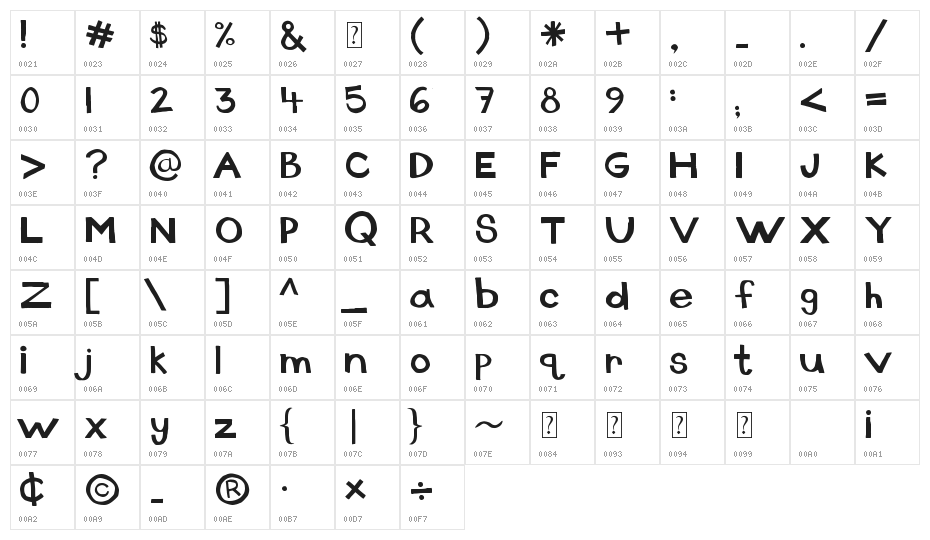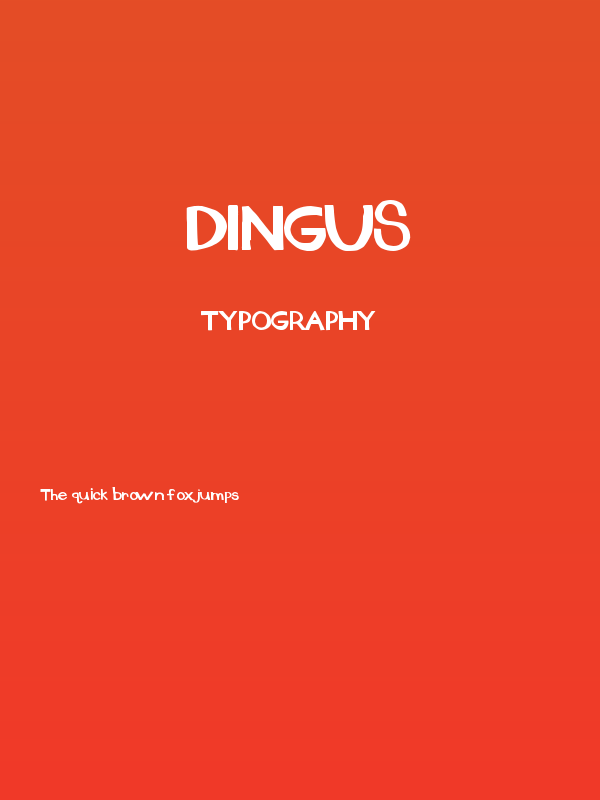
dingus Font
dingus Description
This playful and quirky font features bold, uneven strokes that give it a hand-drawn appearance. The characters have a whimsical, cartoon-like quality, with exaggerated curves and angles that add a sense of fun and creativity. The uppercase letters are bold and prominent, while the lowercase letters maintain a consistent style with slightly more variation in height and width. Numbers and special characters follow the same playful design, making the font versatile for various creative projects. The overall style is informal and lively, perfect for capturing attention in a lighthearted manner.
| Overall Style | Playful, Whimsical |
| Proposed Projects | Ideal for children's books, comic strips, playful branding, and creative posters. |